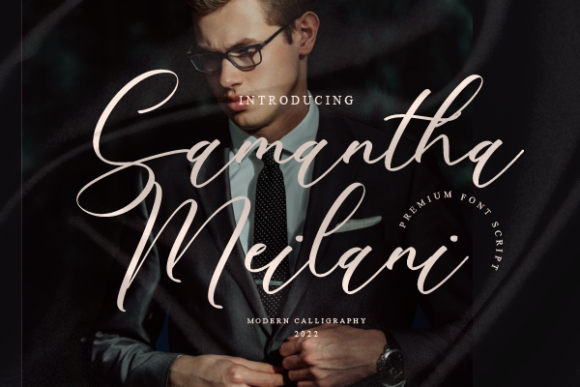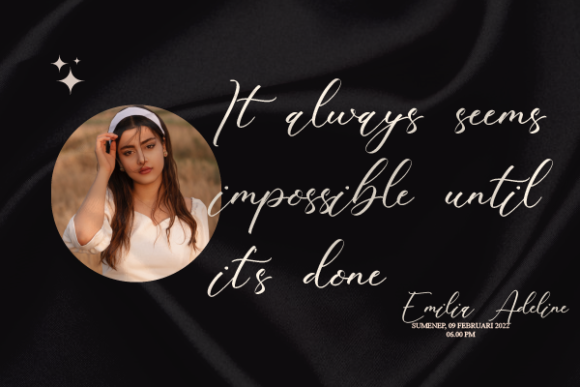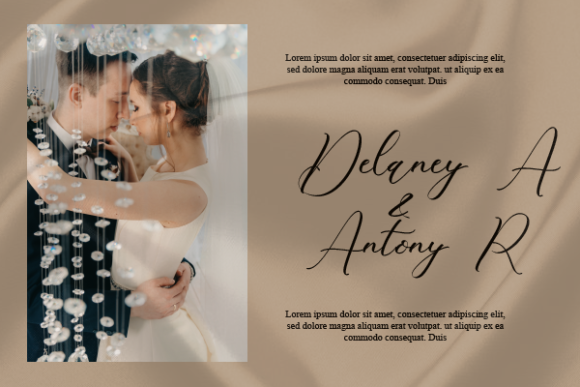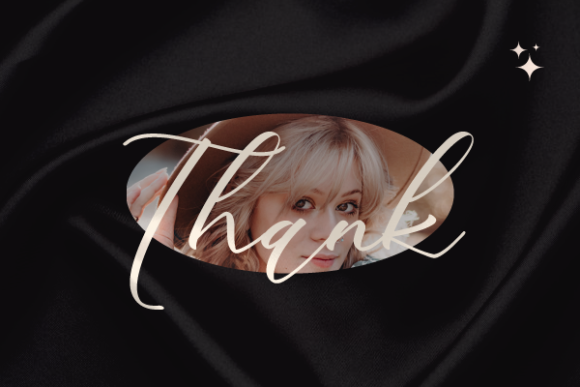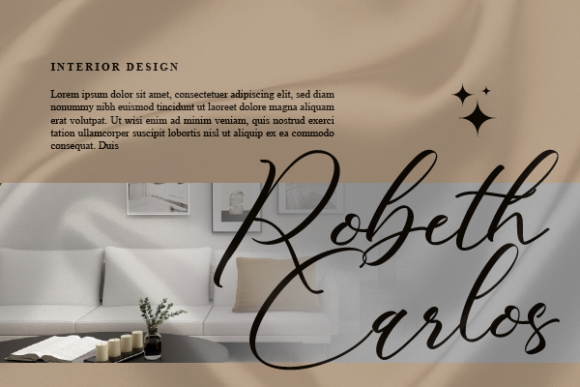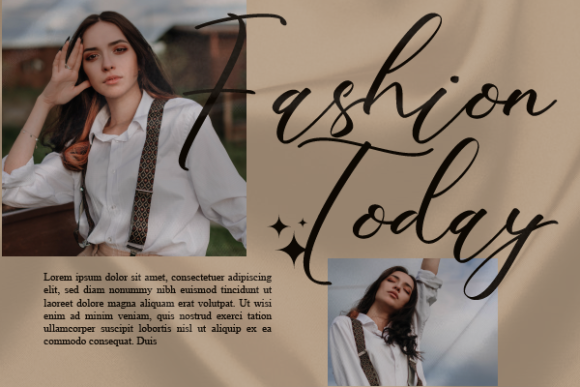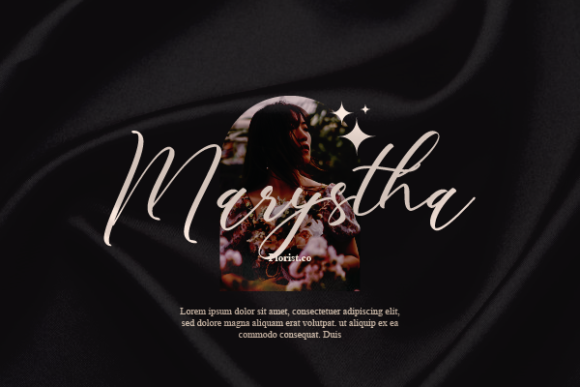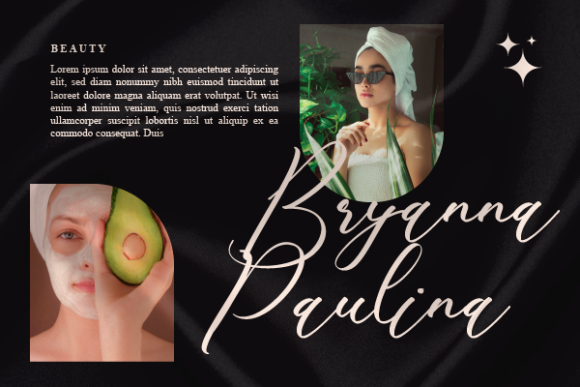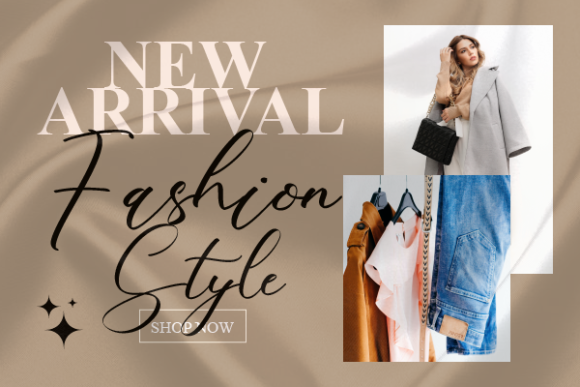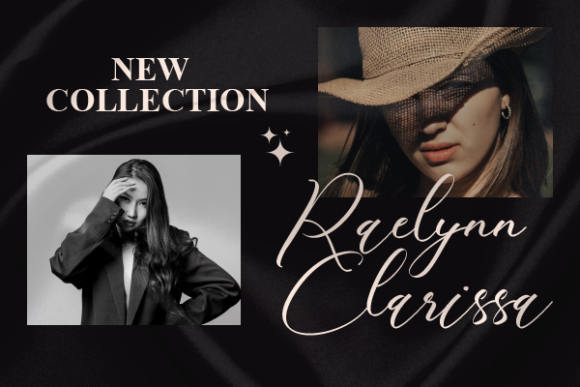
Samantha Meilani Font
About Samantha Meilani Font
Samantha Meilani is a captivating and sophisticated script font that effortlessly brings a romantic and stylish touch to a variety of design projects. Its graceful and flowing letterforms create an air of elegance that is well-suited for enhancing the aesthetics of special occasions and personal sentiments.
When used on wedding invitations, Samantha Meilani adds a sense of timeless beauty to the announcement of love and union. Its intricate details and graceful curves create a luxurious and inviting atmosphere, setting the tone for a truly memorable event.
For thank you cards and quotes, Samantha Meilani infuses each word with a sense of warmth and sincerity. Its handwritten charm adds a personal and heartfelt feel, making your expressions of gratitude and wisdom even more meaningful.
Whether adorning greeting cards, logos, or business cards, Samantha Meilani leaves a lasting impression with its delicate yet impactful design. Its versatility allows it to adapt seamlessly to a range of contexts, making it a valuable asset for branding and promotional materials as well.
The careful craftsmanship of Samantha Meilani ensures that it maintains its stunning appearance across various design elements. Its thoughtful curation of swashes and glyphs adds an extra layer of customization, allowing you to create unique and personalized designs that truly stand out.
In essence, Samantha Meilani is a font that speaks to the heart. Its romantic and stylish nature elevates every project it graces, making it a must-have for designers seeking to evoke emotions and create unforgettable visuals.